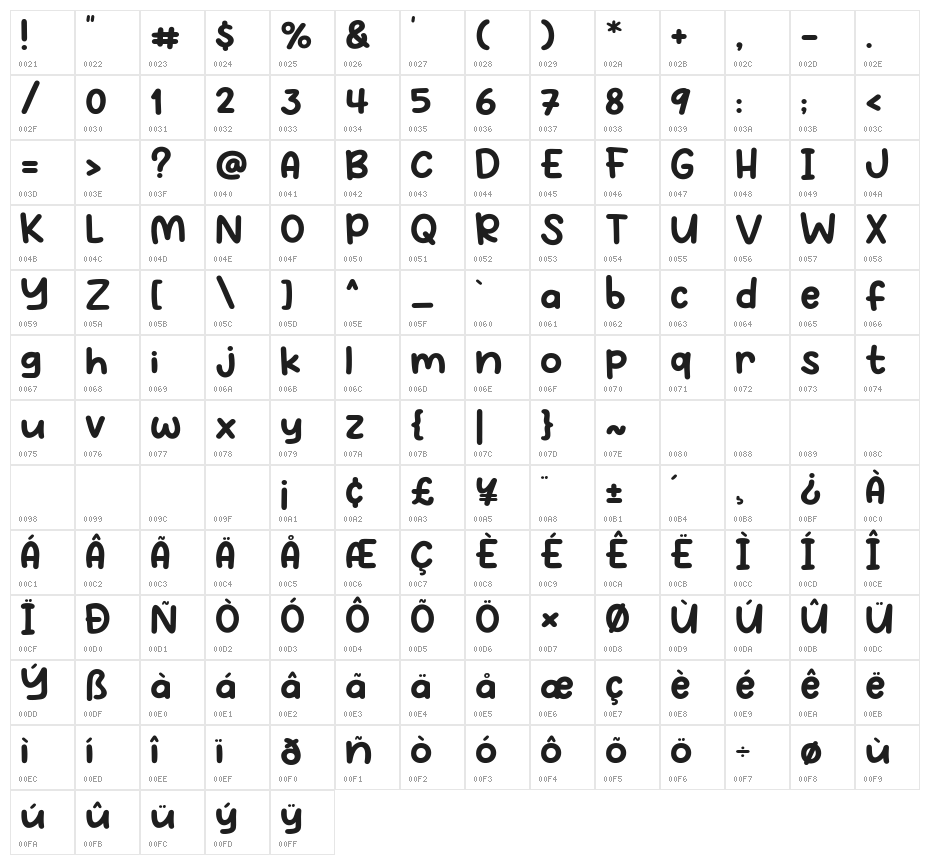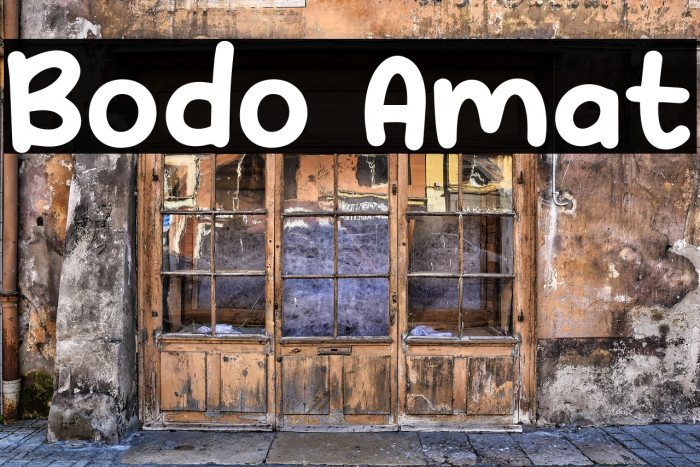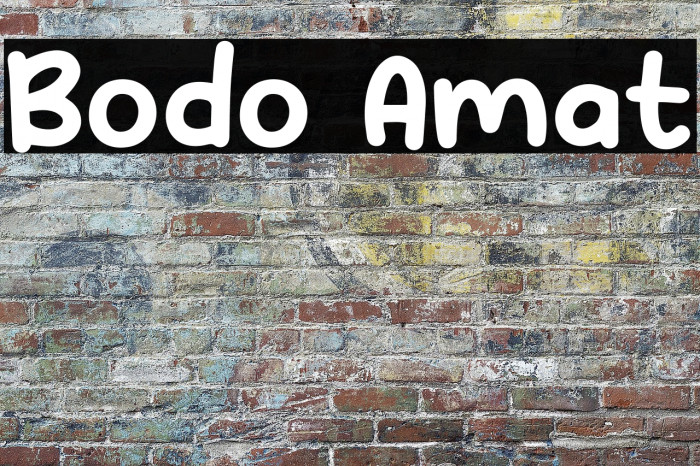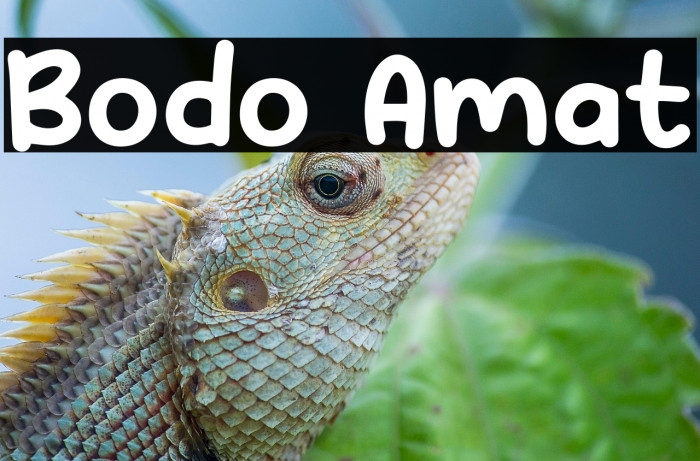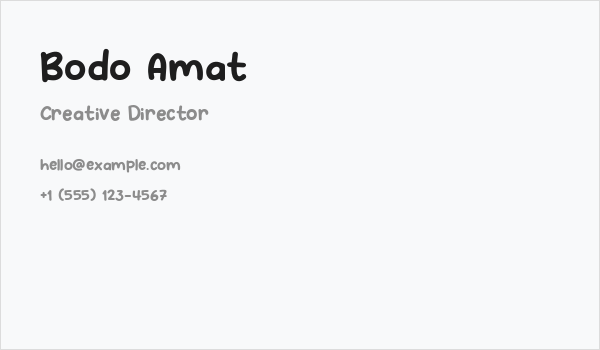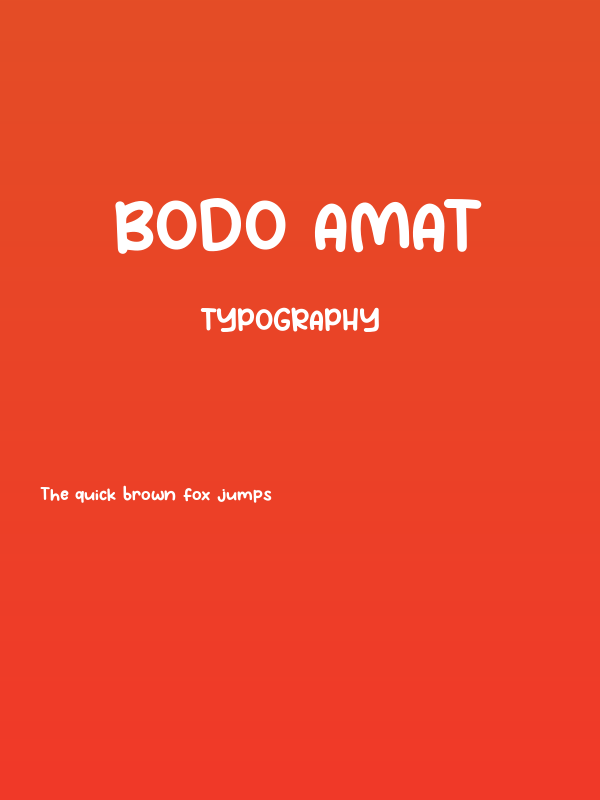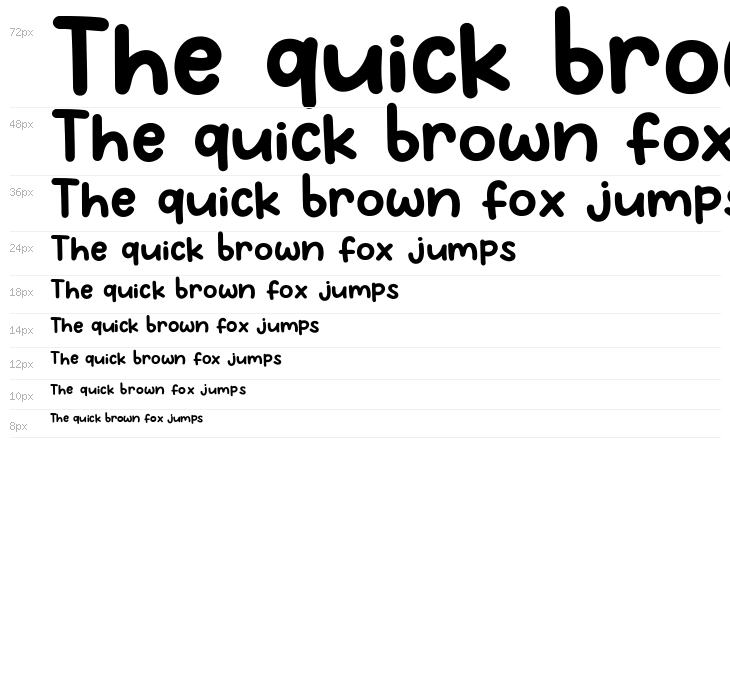
Bodo Amat Font
Bodo Amat Description
This playful and rounded font features a bold and friendly appearance, making it ideal for casual and informal designs. The characters are slightly irregular, adding a hand-drawn feel that enhances its approachable style. The uppercase and lowercase letters maintain a consistent weight, contributing to a cohesive look. Numbers and special characters are designed with the same playful aesthetic, ensuring versatility across different uses. The font's rounded edges and uniform stroke width create a harmonious and balanced appearance, making it suitable for projects that require a touch of whimsy and creativity.
| Proposed Projects | Ideal for children's books, playful branding, greeting cards, and casual invitations. |